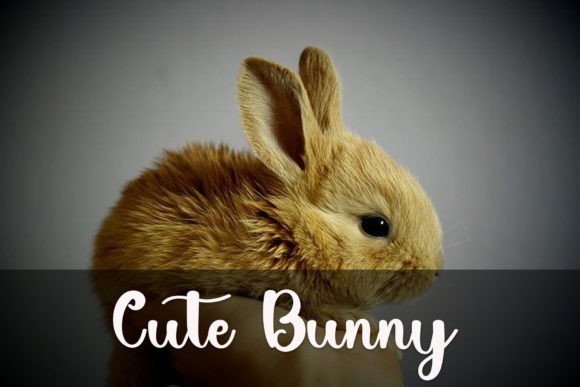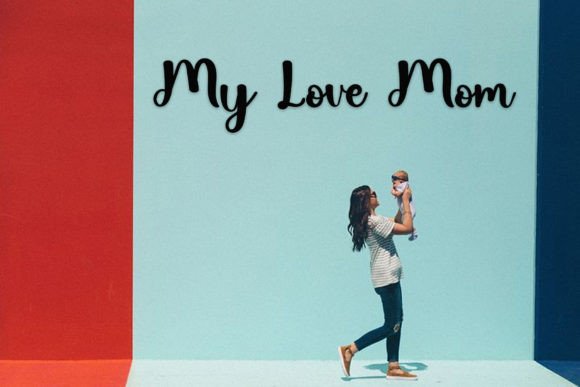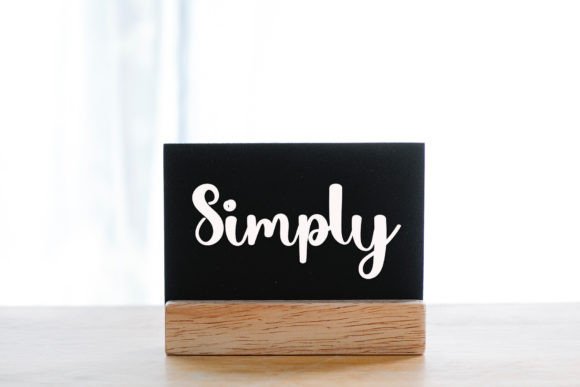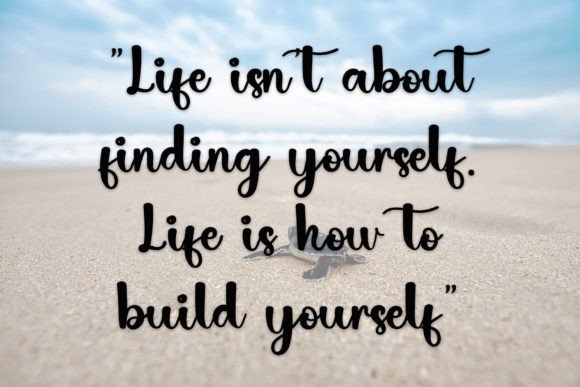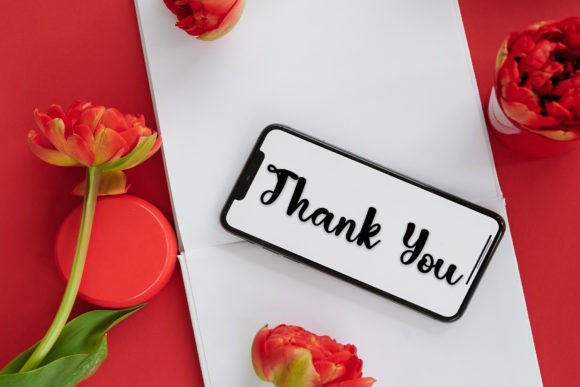
Babies Font: The Elegant Choice for Your Design Projects
Are you looking for a font that exudes elegance and sophistication? Look no further than Babies Font, a beautiful handwritten font that is sure to capture your heart. With its unique and timeless style, Babies Font is perfect for designers and crafters who want to add a touch of class to their projects.
What is Babies Font?
Babies Font is a neat and beautiful handwritten font that is described by an elegant touch. It is a carefully crafted font that is designed to be both visually appealing and highly legible. The font features a distinctive and stylish design that is sure to make your projects stand out from the crowd.
Key Features of Babies Font
- Elegant and Sophisticated Design: Babies Font features an elegant and sophisticated design that is perfect for projects that require a touch of class.
- Handwritten Style: The font has a beautiful handwritten style that gives it a unique and personal touch.
- Highly Legible: Despite its elegant design, Babies Font is highly legible and easy to read, making it perfect for use in a variety of projects.
- Timeless Style: The font has a timeless style that will not go out of fashion anytime soon, making it a great investment for designers and crafters.
Why Choose Babies Font?
There are many reasons why you should choose Babies Font for your design projects. Here are just a few:
- Unique Design: Babies Font has a unique design that will set your projects apart from the crowd.
- Elegant and Sophisticated: The font exudes elegance and sophistication, making it perfect for projects that require a high-end feel.
- Versatile: Babies Font is highly versatile and can be used in a variety of projects, from wedding invitations to branding and packaging.
Project Ideas Using Babies Font
Babies Font is a versatile font that can be used in a variety of projects. Here are some ideas to get you started:
- Wedding Invitations: Use Babies Font to create beautiful and elegant wedding invitations.
- Branding and Packaging: Use the font to create a unique and sophisticated brand identity.
- Stationery: Use Babies Font to create beautiful stationery, including notecards, letterheads, and more.
- Signage: Use the font to create elegant and eye-catching signage for your business or event.
In conclusion, Babies Font is a beautiful and elegant handwritten font that is perfect for designers and crafters who want to add a touch of class to their projects. With its unique and timeless style, Babies Font is sure to capture your heart and inspire your creativity. So why wait? Download Babies Font today and start creating spectacular designs!